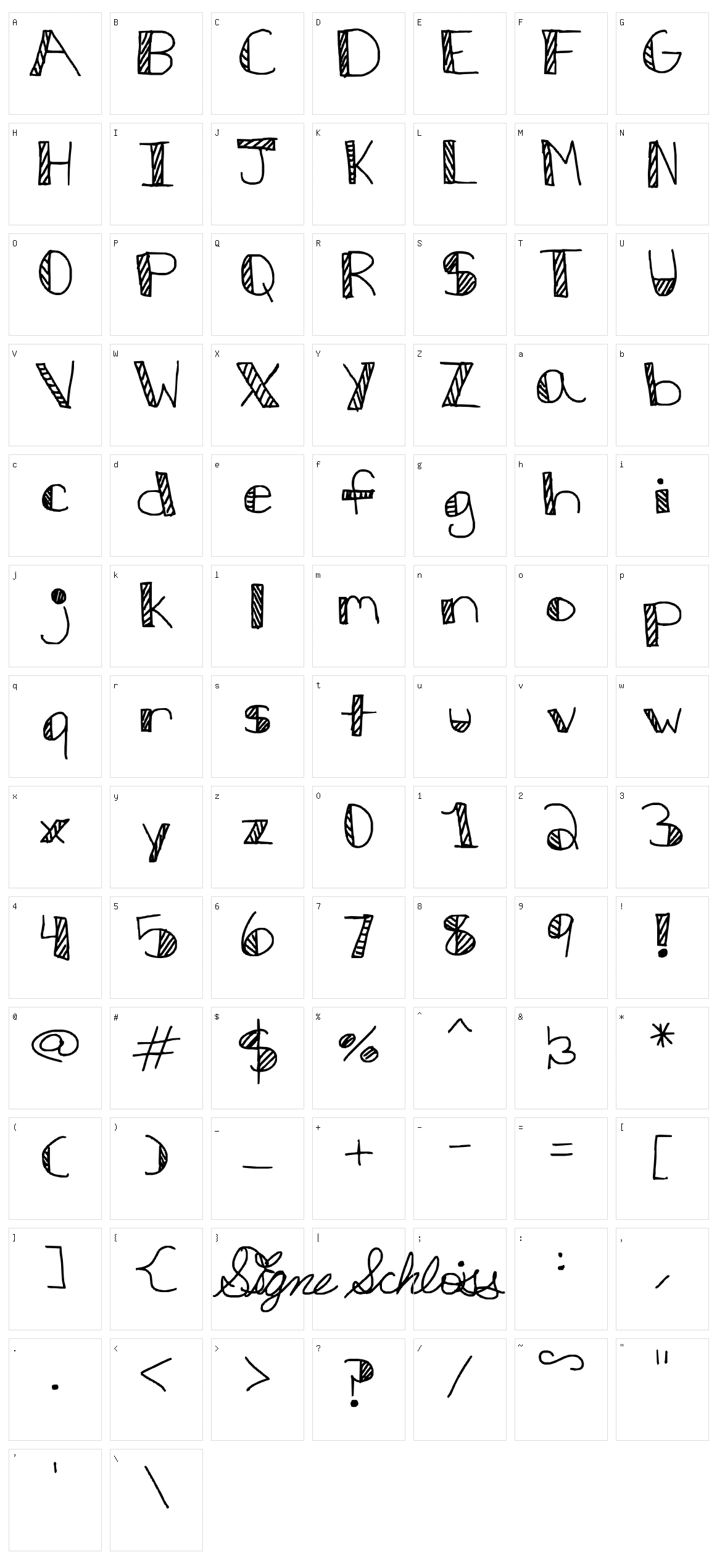
The free font Stripes and bubbles is carefully designed by Schloss, showcasing a thoughtful balance of creativity and usability and falls under the Cartoon font style. When you download the ZIP file, it contains only 21.83 KB of font files, making it lightweight and quick to download. Please review the license details below to understand permitted usage and distribution rights. If license information is not available, we recommend using this font for personal projects only or contacting the author directly for commercial usage permissions.